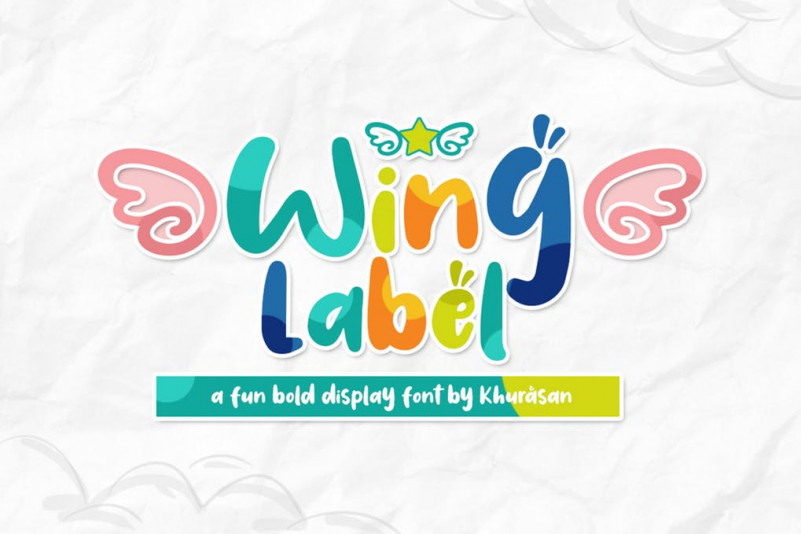
Wing Label Font
The Wing Label is a fun bold display font, fresh & modern style. Wing Label Font suitable for logo, branding, greeting card, poster and any design that you create.